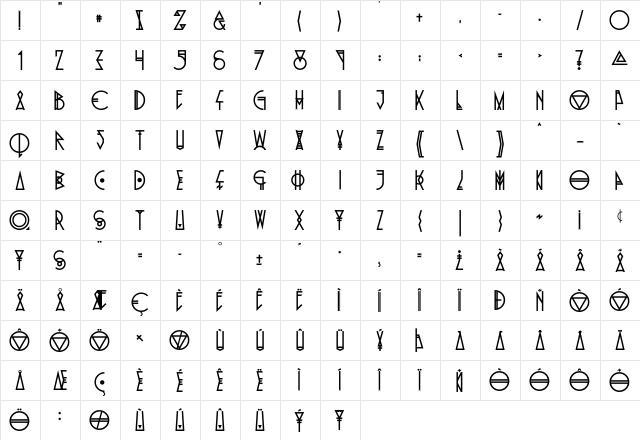
Pride Of The Young Regular
| Designer | Dirt2.com |
Design Context for Pride Of The Young Typeface
Pride Of The Young is a composed and adaptable typeface that performs quietly and consistently across a wide range of design contexts.